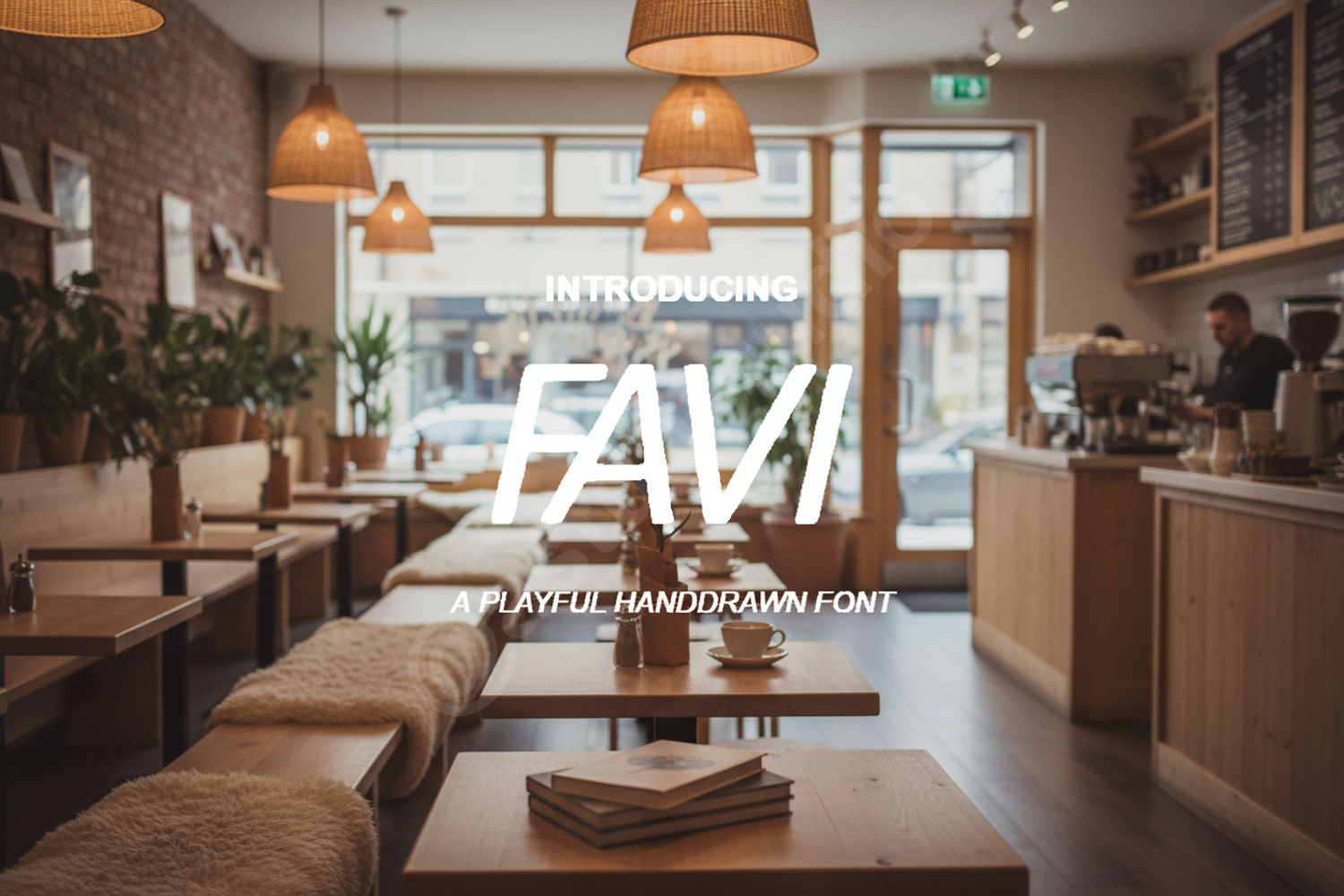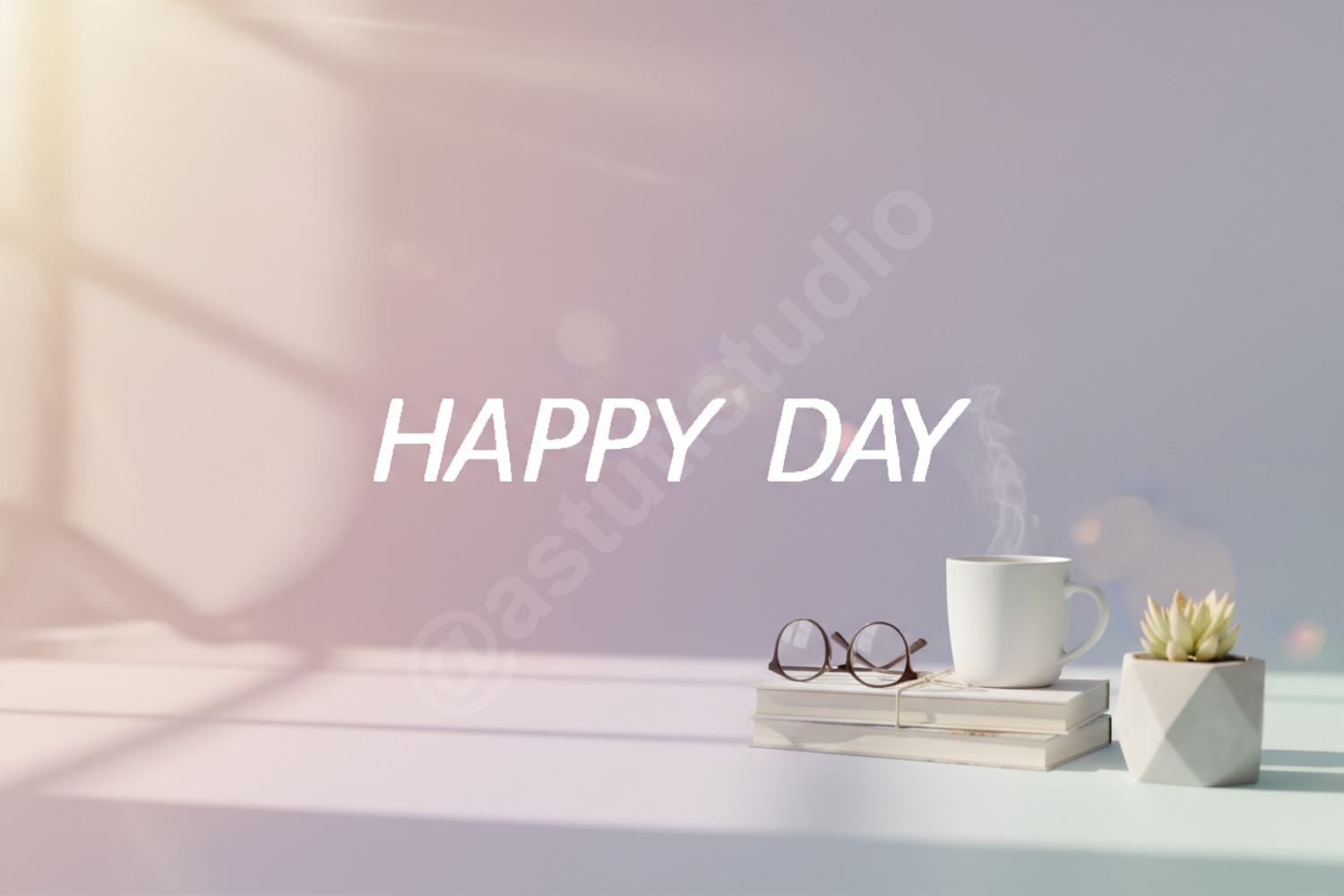
Favi - A Premium Modern Minimalist Sans Serif
Favi
Favi is a sophisticated and versatile sans-serif typeface designed to bring a touch of premium elegance to any project. With its clean lines, balanced proportions, and contemporary aesthetic, Favi is the ultimate choice for designers seeking a high-quality font that effortlessly bridges the gap between modern minimalism and timeless professional appeal.
- Branding and Visual Identity: Create impactful logos and brand guidelines.
- Editorial Design: Perfect for clean magazine layouts and high-end book covers.
- Digital Marketing: Elevate social media graphics and advertising banners.
- Web Design: Ensure readability and style across all digital platforms.
- Corporate Stationery: Professional look for business cards, letterheads, and presentations.